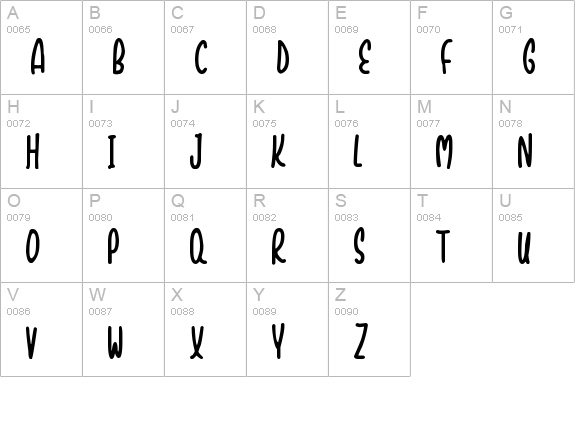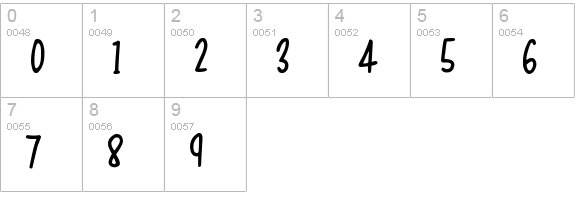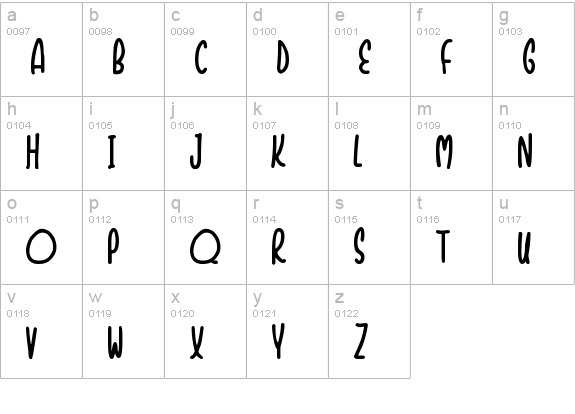
Introducing the captivating Shockers font, a stunning display typeface that is sure to make your designs stand out. With its bold and edgy look, Shockers font is perfect for creating eye-catching headlines, posters, logos, and more. The unique design of this font will add a touch of modernity and excitement to any project.